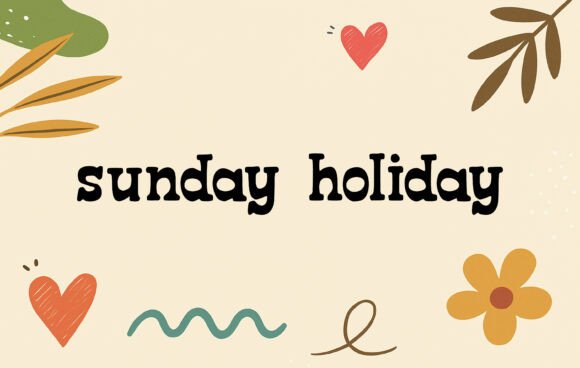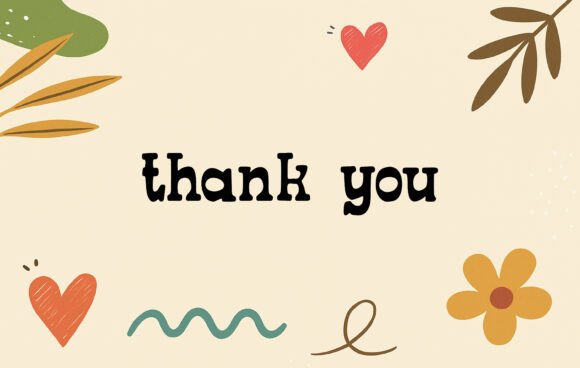
Discover the Versatility of Dini Font: Elevate Your Designs to New Heights
In the world of typography, a font can make or break a design. It’s the foundation upon which creativity is built, and the right choice can elevate a project from ordinary to extraordinary. This is where Dini Font comes into play – a versatile and legible typeface designed to bring your creative ideas to life. With its clean lines, elegant curves, and exceptional readability, Dini Font is poised to become your go-to choice for a wide range of design projects.
Unleash Your Creativity with Dini Font
Dini Font is crafted with the designer in mind. Its unique design ensures that it stands out in any medium, whether it’s on a magazine headline, a t-shirt, social media post, or a wedding invitation. The font’s legibility is one of its strongest assets, making it perfect not only for titles but also for body text. This versatility means you can use Dini Font across various platforms and projects, from branding and advertising to personal stationery and digital media.
Why Choose Dini Font?
- Legibility: One of the key features of Dini Font is its exceptional legibility. Whether you’re working on a large-scale billboard or a small business card, Dini Font ensures that your message is conveyed clearly and effectively.
- Versatility: Dini Font isn’t limited to a specific genre of design. It can be used in fashion (for t-shirts and branding), in editorial design (for magazine headlines and articles), in digital media (for social posts and website content), and in personal projects (for wedding invitations and greeting cards).
- Elegance: The font boasts an elegant and clean design that adds a touch of sophistication to any project. Its curves and lines are meticulously crafted to provide a visually appealing aesthetic.
- Creativity Unleashed: With Dini Font, you’re not just choosing a typeface; you’re unlocking a world of creative possibilities. Its design encourages experimentation and can be a part of both minimalist and complex compositions.
Applications of Dini Font
The applications of Dini Font are vast and varied. Here are a few ideas to get you started:
- Magazine Headlines: Use Dini Font to create eye-catching headlines that draw readers in. Its bold and elegant appearance makes it perfect for cover pages and feature articles.
- T-Shirts and Merchandise: Dini Font’s clear and distinctive style makes it ideal for apparel and merchandise design. It’s a great way to make a statement or add a personal touch.
- Social Media: Stand out on social media platforms with Dini Font. Whether it’s a post, a story, or a graphic, this font ensures your content looks professional and engaging.
- Branding: For businesses looking to establish a strong brand identity, Dini Font offers a clean and modern look that can be adapted across various mediums.
- Wedding Invitations and Cards: Add an element of class to your wedding invitations, greeting cards, and other personal stationery with Dini Font’s elegant design.
Dini Font is more than just a typeface; it’s a tool for creativity and self-expression. Its legibility, elegance, and versatility make it an invaluable asset for designers and crafters looking to elevate their projects. Whether you’re working on a commercial project or a personal endeavor, Dini Font has the potential to bring your ideas to the highest level. So why wait? Explore the possibilities with Dini Font today and discover a world of creative potential at your fingertips.